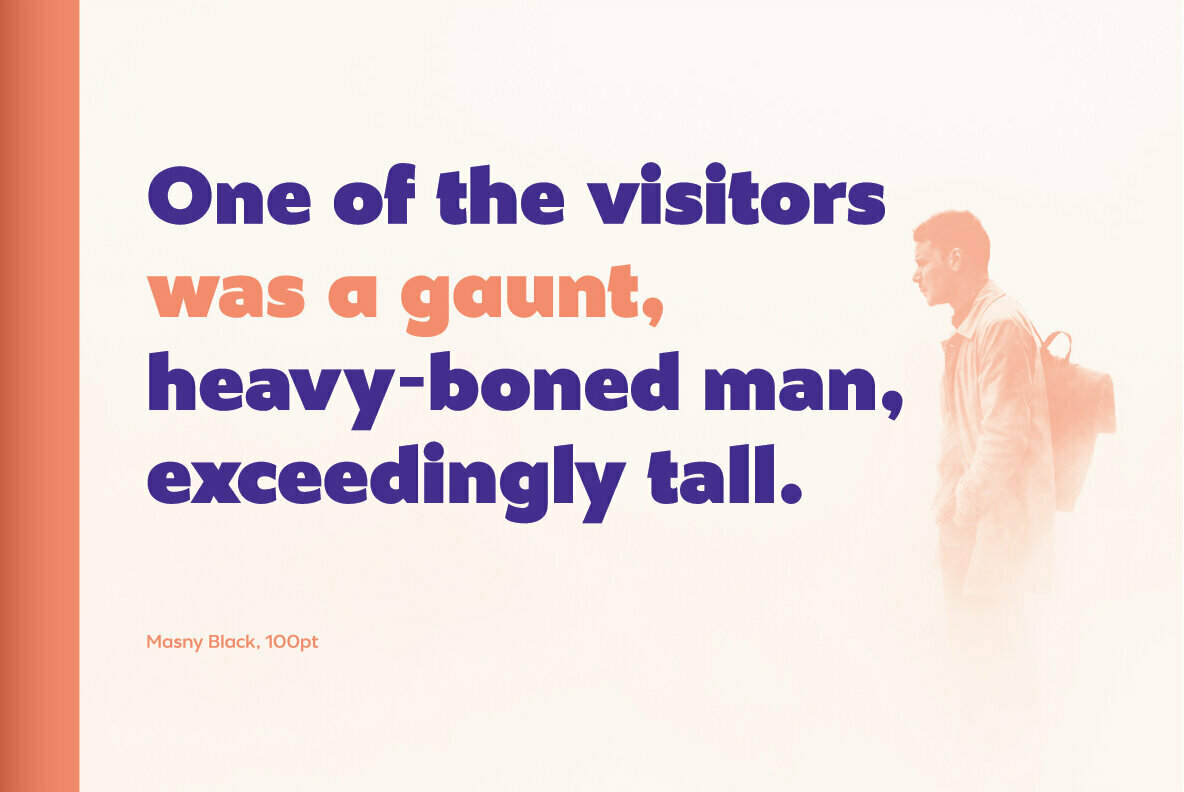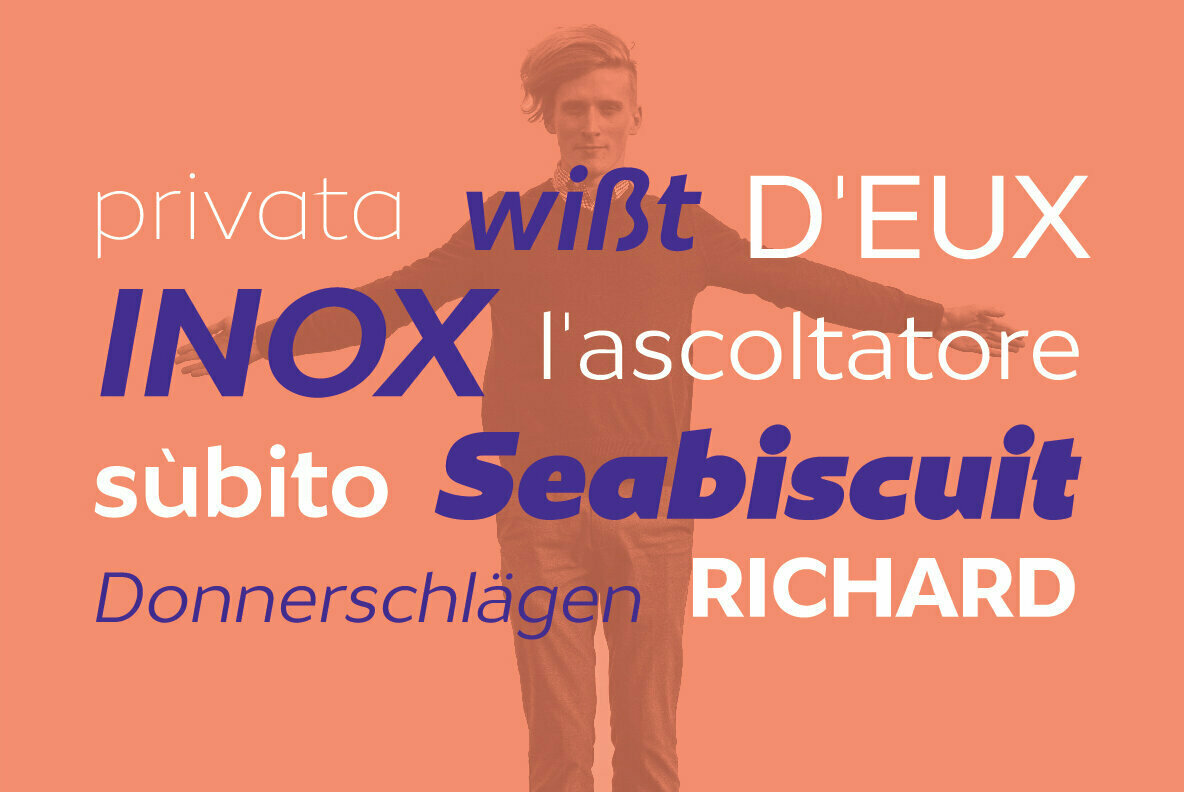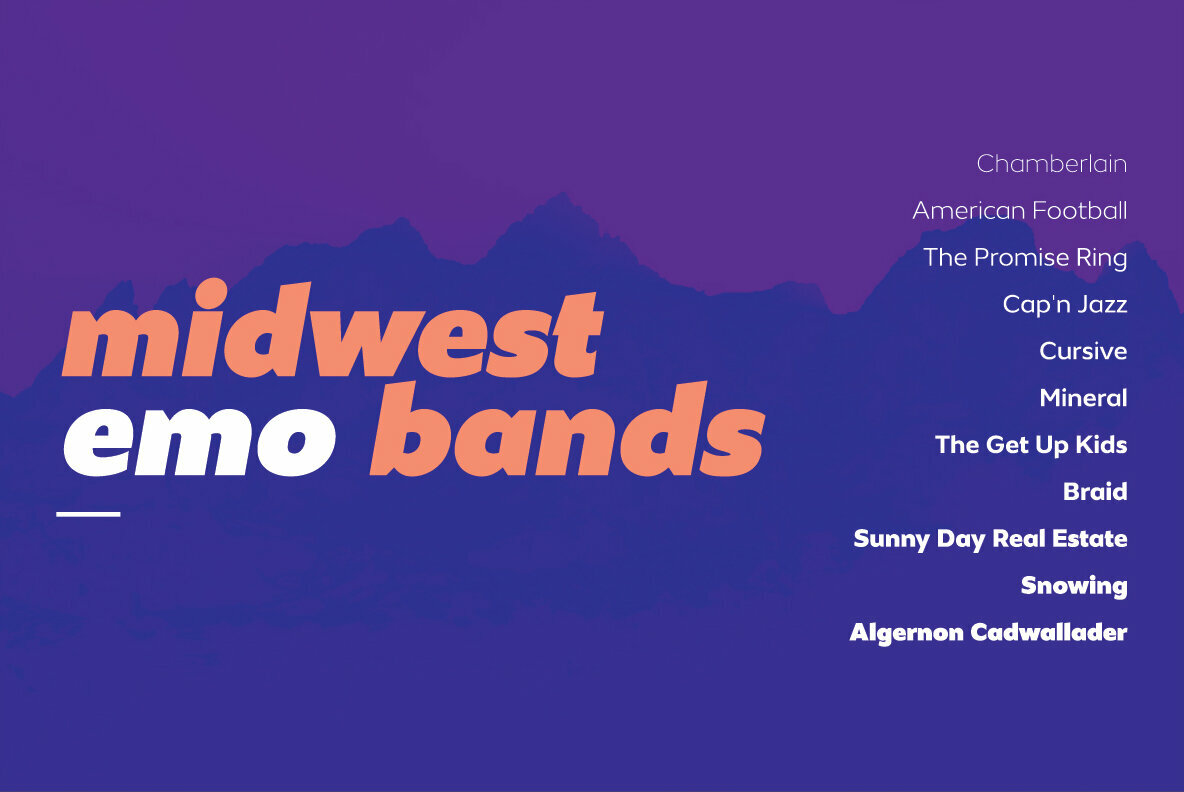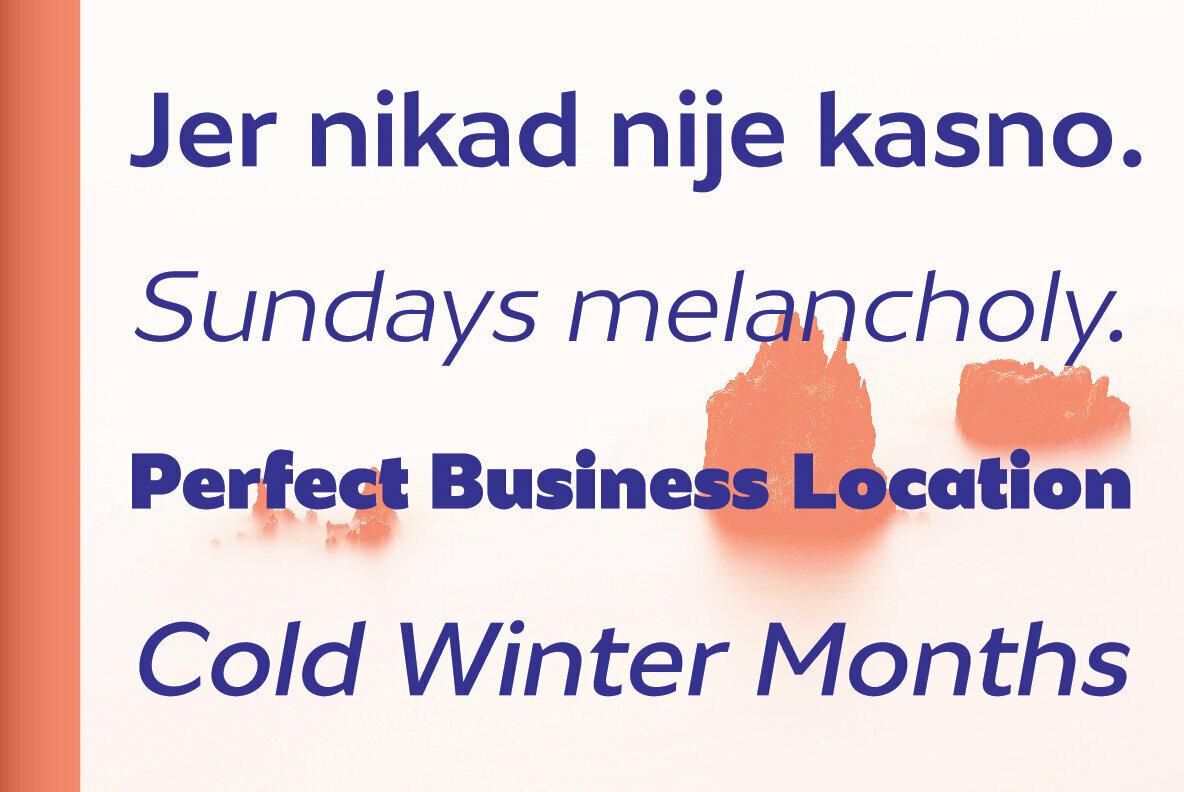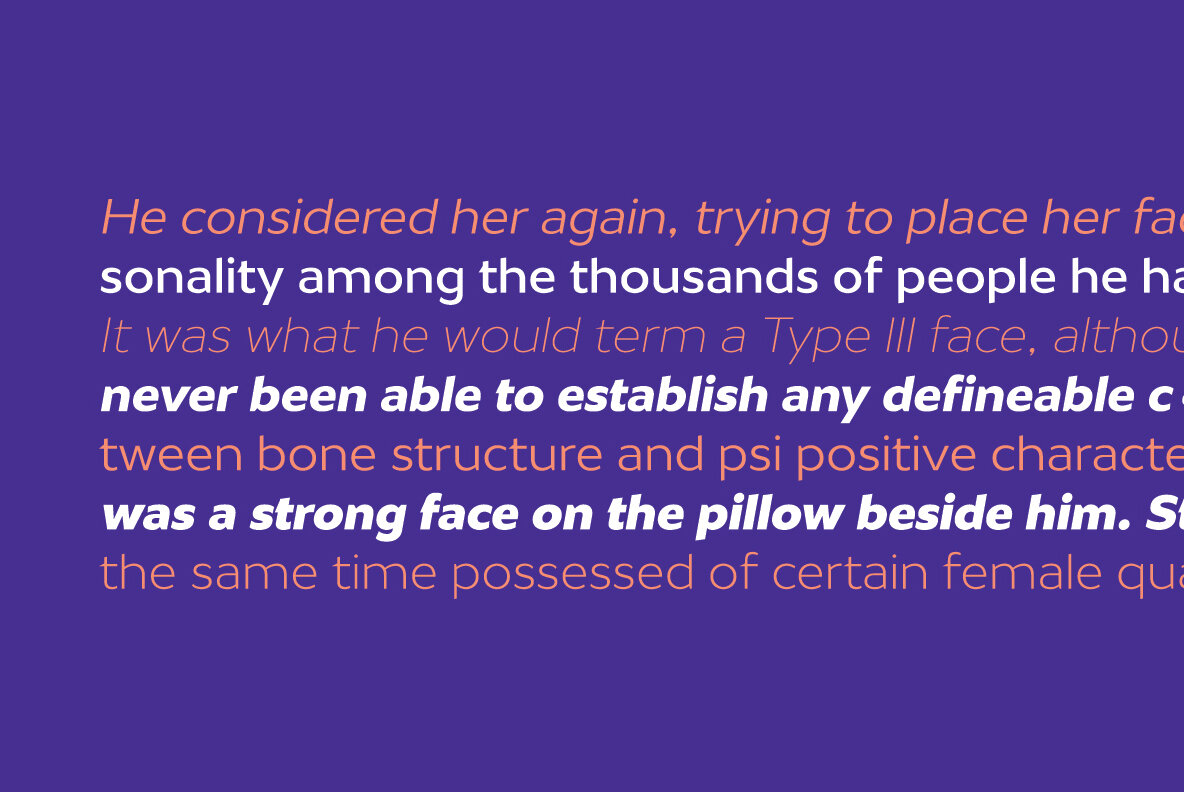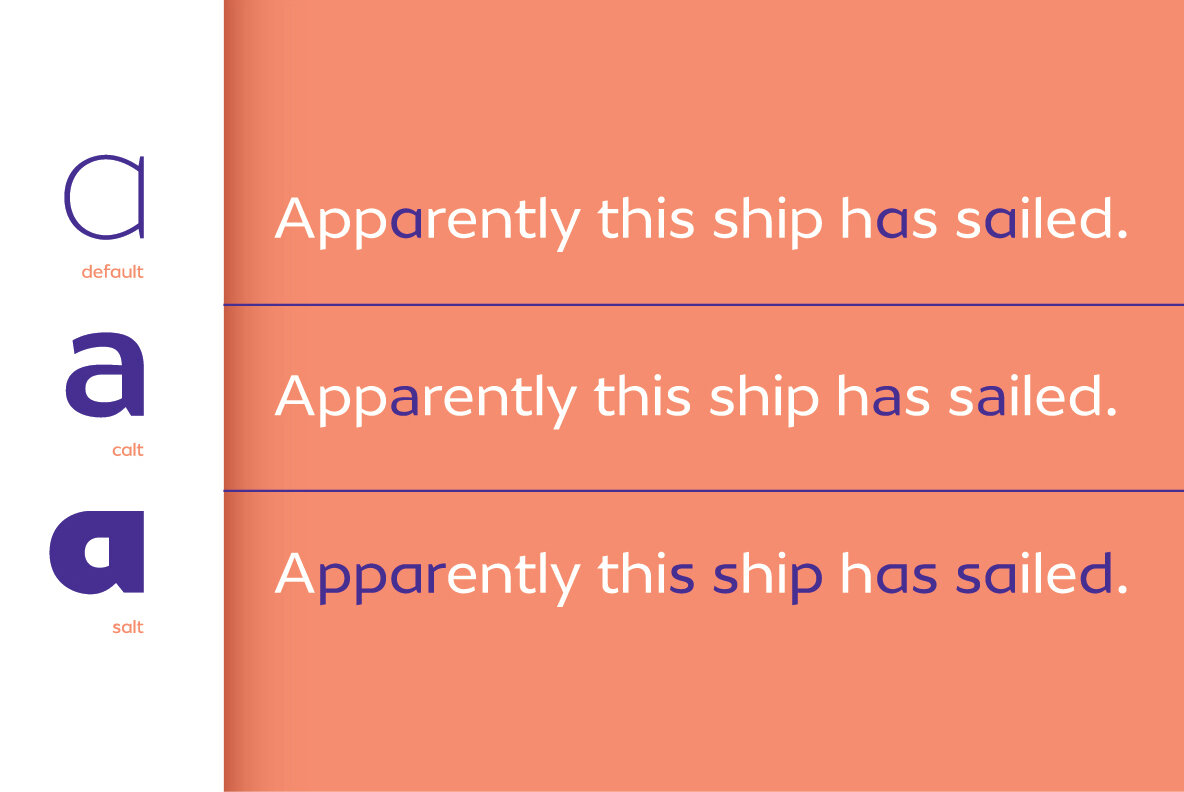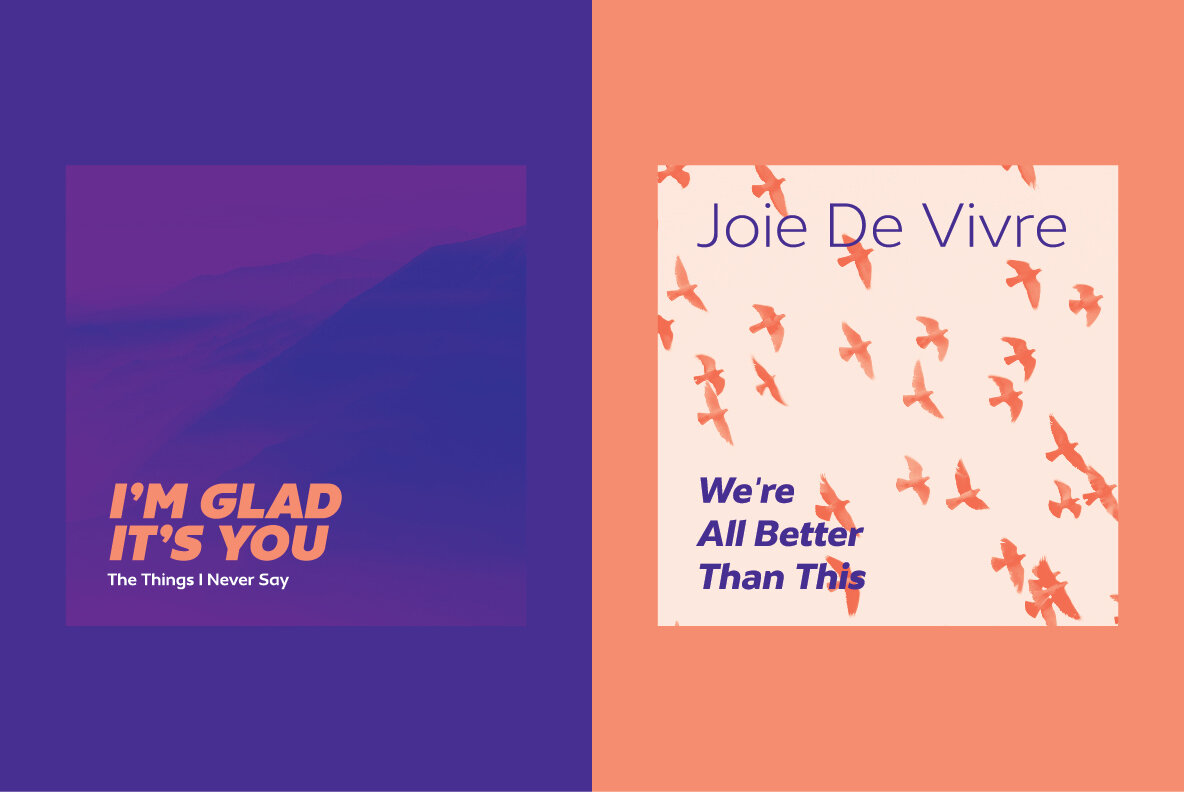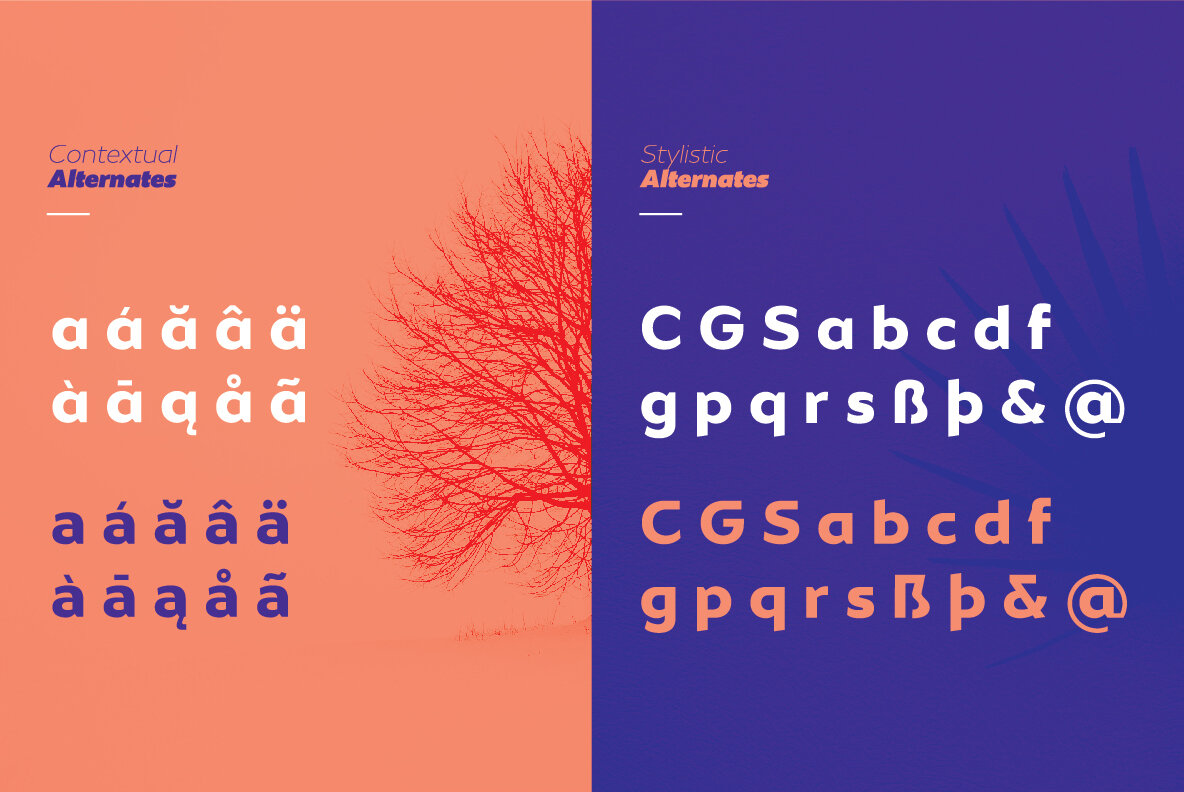
Masny Font
Masny is a modern sans serif family that comes in 22 weights. It contains Stylistic and Contextual Alternates. Masny is intended for use in every situation, from editorial design to branding.